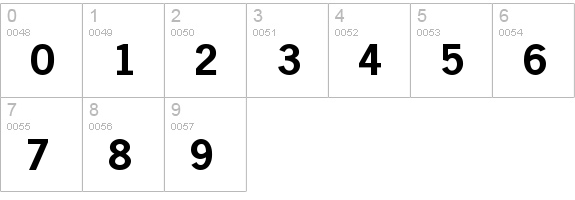
Macro SSi Bold is a strong, high-contrast variant in the Macro typeface family \xE2\x80\x94 well suited to headlines, attention-grabbing titles, and strong calls-to-action.
Introducing Macro SSi Bold, a striking and commanding font that demands attention with its bold and confident presence. This font is designed to make a lasting impact, whether it's used in headlines, titles, or any other prominent display text. With its strong and distinct letterforms, Macro SSi Bold exudes power and vitality, making it the perfect choice for projects that require a touch of intensity and vigor. Its clean and well-defined lines ensure optimum readability, even at smaller sizes, making it versatile for both print and digital applications. What sets Macro SSi Bold apart is not only its exceptional design, but also its availability as a free download. That's right, this captivating font can be freely obtained at FontsMarket.com, allowing designers and creatives to elevate their work without any financial constraints. Whether you're working on a branding project, poster design, or any other creative endeavor, Macro SSi Bold will effortlessly convey your message with its commanding presence. Its strong and impactful appearance will captivate your audience and leave a lasting impression. So why wait? Download Macro SSi Bold now from FontsMarket.com and unleash the power of this extraordinary font in your next project. Experience the freedom of creativity and make a bold statement with Macro SSi Bold.